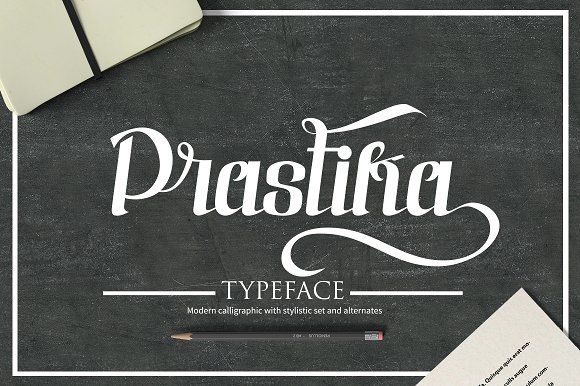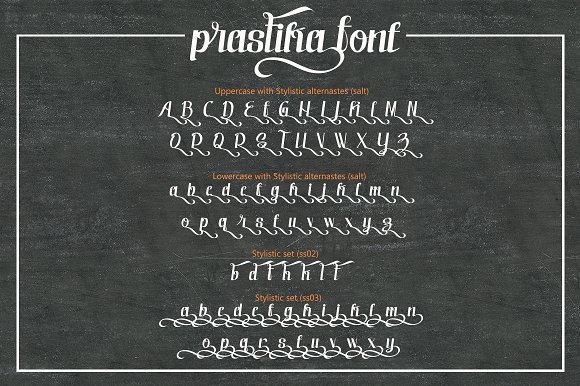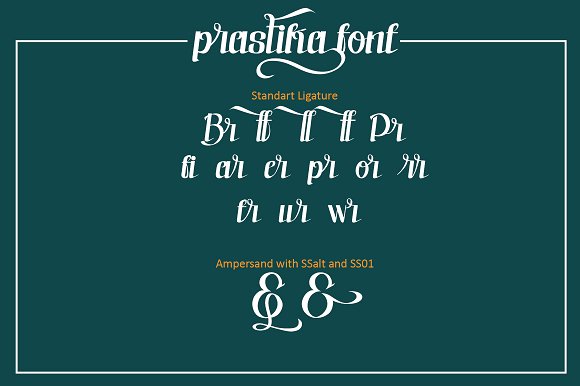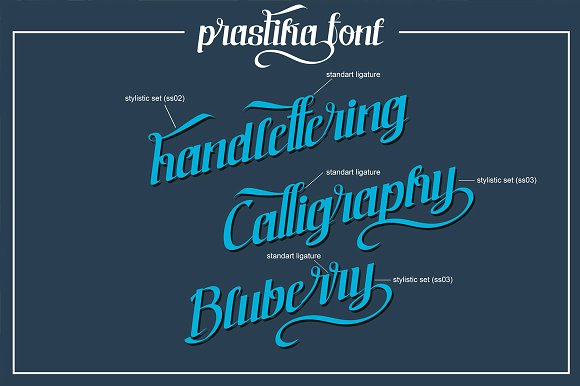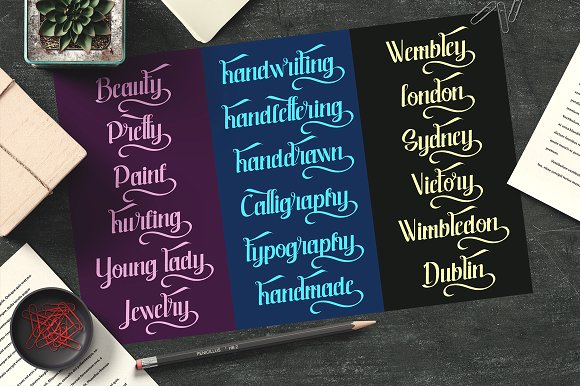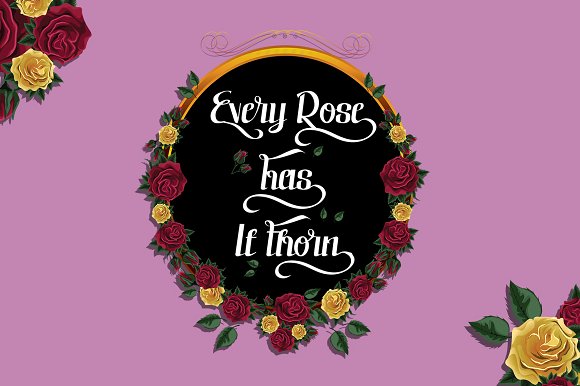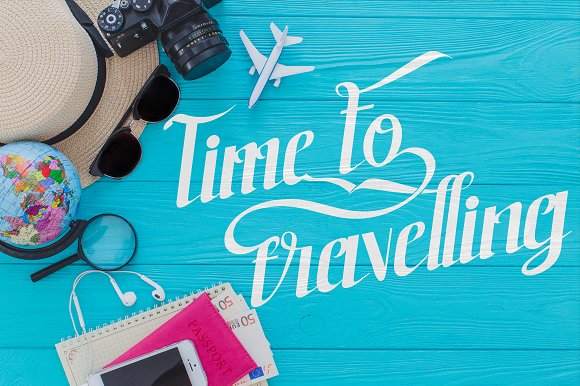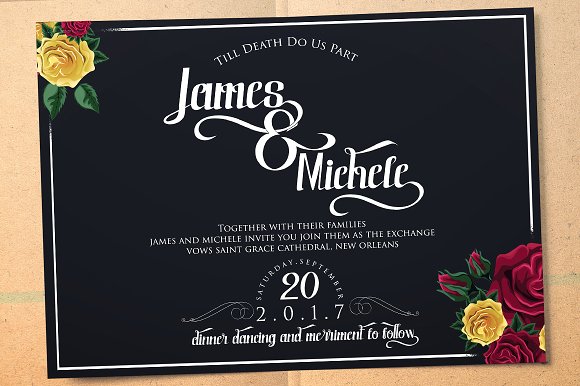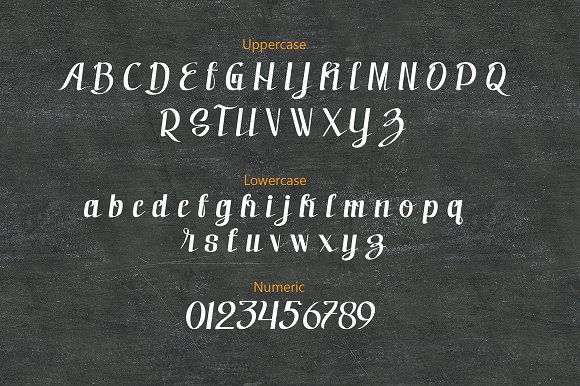
prastika script Font
Prastika Script Typeface inspired from calligraphy with modern style, Clean, bold it’s recomended for your awesome works (Brands, Poster, Logo, Advertisement, etc)